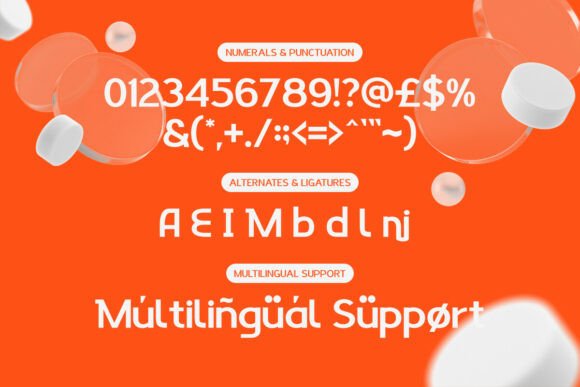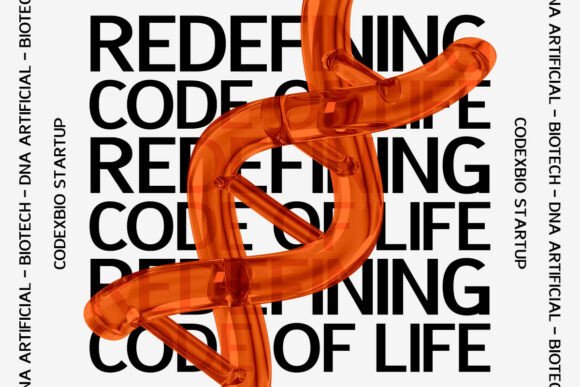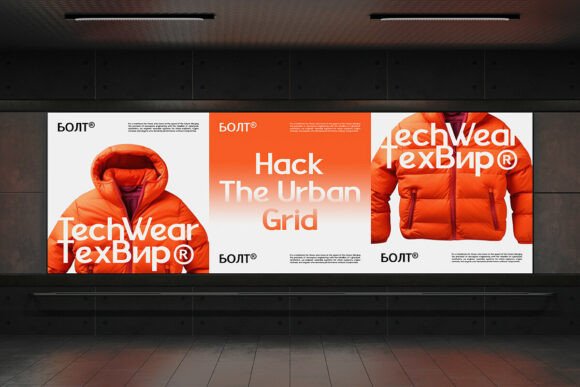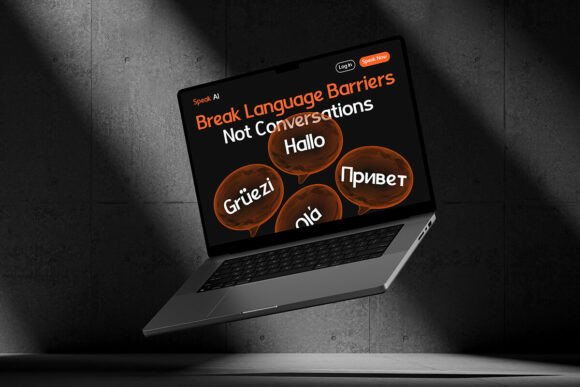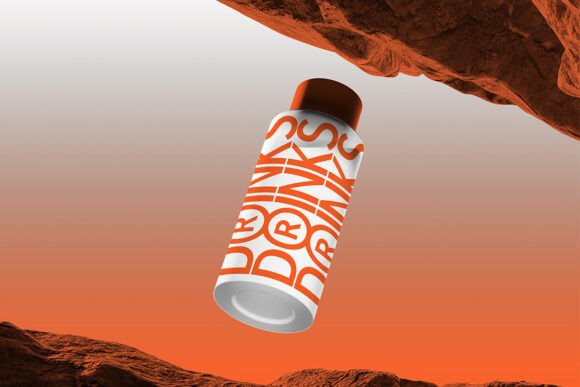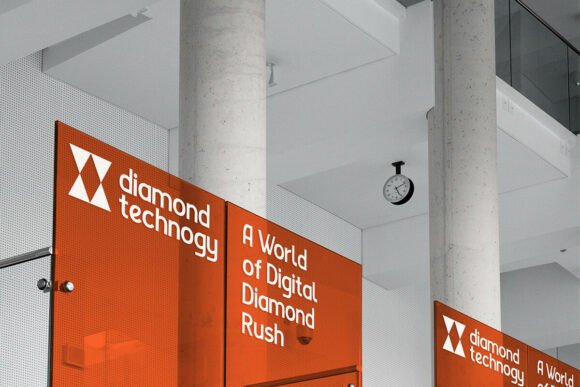
Ecliptica Font: Elevate Your Design with a Modern Sans Serif
In the world of typography, fonts play a vital role in shaping the visual identity of a brand or design. With the ever-evolving creative landscape, designers and crafters are constantly on the lookout for innovative and versatile typefaces that can help them make a statement. Introducing Ecliptica, a modern sans serif font that embodies the perfect blend of high-fashion aesthetics and everyday functionality.
The Urban Edge of Ecliptica
Ecliptica is a typeface that exudes confidence and sophistication, making it an ideal choice for streetwear branding, lifestyle editorial work, and bold digital interfaces. Its tall x-height, wide proportions, and clean, geometric architecture give it a sturdy yet stylish presence that commands attention without losing its professional clarity. Whether you’re designing a logo, heading, or body text, Ecliptica’s modern sans serif design ensures that your message is conveyed with precision and style.
Designed for the 2025 Creative Landscape
Ecliptica was specifically designed by Vadova Studio for the 2025 creative landscape, where visual communication is more crucial than ever. This font is tailored to meet the demands of modern designers, who require typefaces that can adapt to various mediums and applications. With Ecliptica, you can create stunning visuals that capture the essence of your brand or message, while maintaining a professional edge.
Key Features of Ecliptica
- Tall x-height: Ecliptica’s tall x-height provides excellent legibility, making it perfect for body text and long-form content.
- Wide proportions: The font’s wide proportions create a sense of openness and airiness, adding to its modern and sleek feel.
- Clean, geometric architecture: Ecliptica’s geometric design ensures that it remains clean and uncluttered, even at smaller font sizes.
- High-fashion aesthetics: Ecliptica’s stylish and sophisticated design makes it an excellent choice for fashion brands, editorials, and lifestyle publications.
Applications of Ecliptica
Ecliptica’s versatility makes it an excellent choice for a wide range of applications, including:
- Streetwear branding: Ecliptica’s bold and modern design makes it perfect for streetwear brands looking to make a statement.
- Lifestyle editorial work: The font’s high-fashion aesthetics and clean design make it an excellent choice for lifestyle publications and editorials.
- Bold digital interfaces: Ecliptica’s sturdy and stylish presence makes it ideal for digital interfaces, such as websites, apps, and social media graphics.
Why Choose Ecliptica?
With so many typefaces available, why choose Ecliptica? Here are a few compelling reasons:
- Unique and distinctive: Ecliptica’s modern sans serif design sets it apart from more traditional typefaces.
- Versatile: The font’s adaptability makes it suitable for a wide range of applications and mediums.
- Professional clarity: Ecliptica’s clean design ensures that your message is conveyed with precision and style.
Ecliptica is a powerful and stylish typeface that is sure to elevate your design to the next level. Its modern sans serif design, tall x-height, and wide proportions make it an excellent choice for designers and crafters looking to make a statement. Whether you’re working on a streetwear branding project, lifestyle editorial, or bold digital interface, Ecliptica is the perfect choice for adding a touch of sophistication and style to your design.